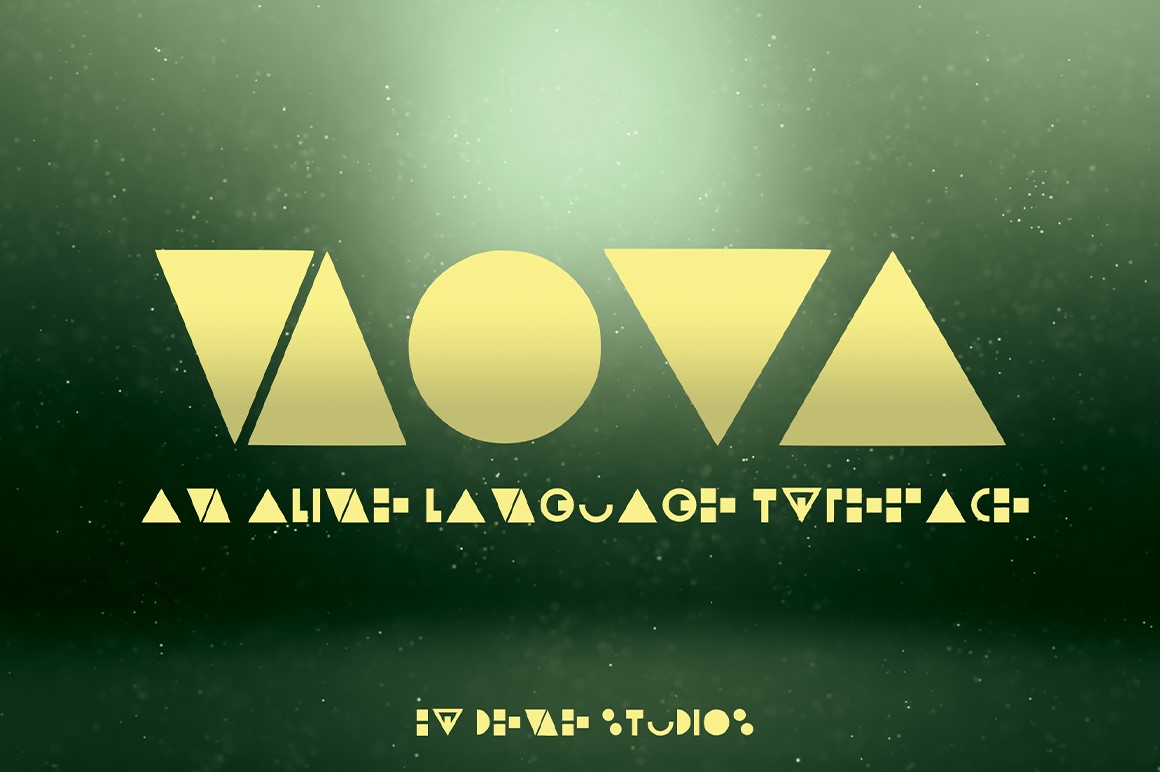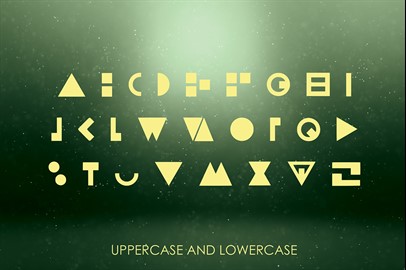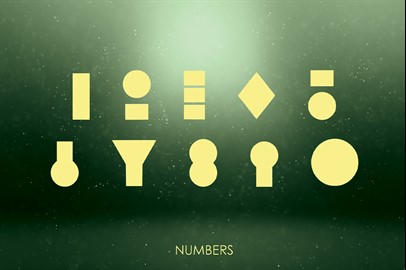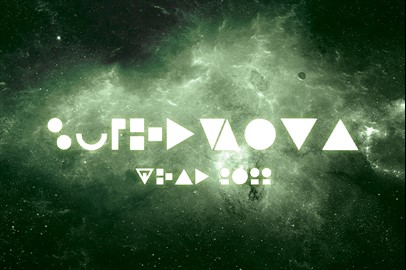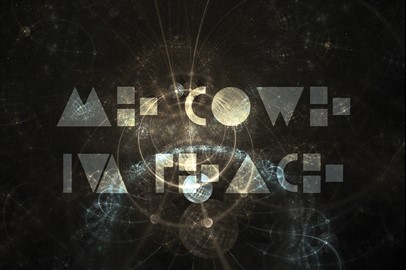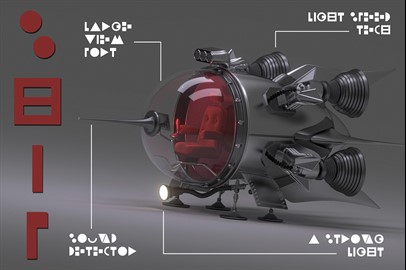
NOVA - An Alien Language Typeface
Nova
is a unique and creative design of an alien language that bears some similarities to our own. This typeface has been passionately handcrafted to give you an alien language. Inspired by sci-fi books, this font is perfect for your next project, especially if you want to give a futuristic and alien feel to your work.